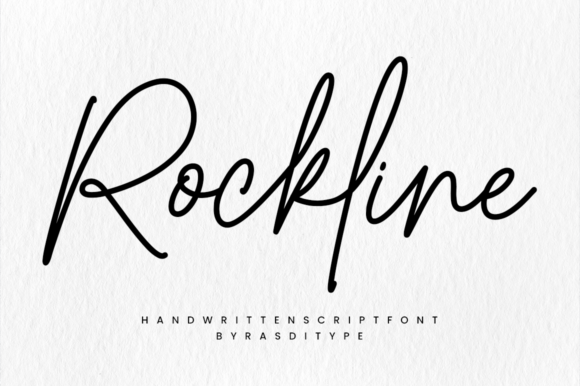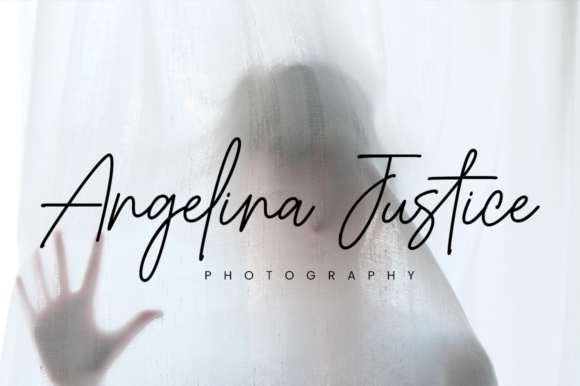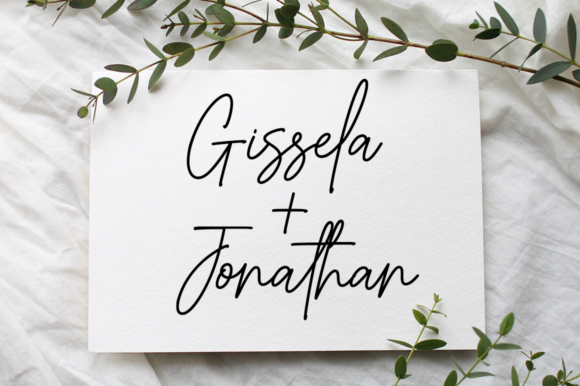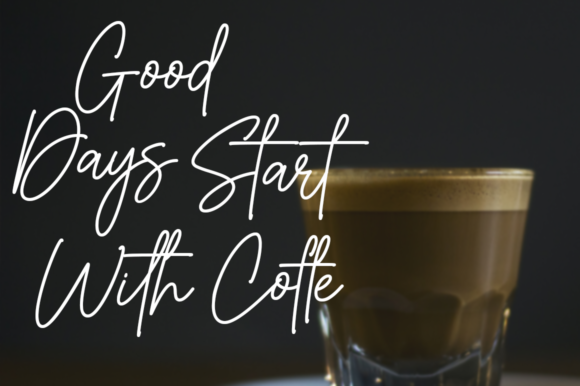
Rockline Font
About the Rockline Font
The wait is over! The incredible Rockline Font is now available for your design toolkit. Rockline is a thin lettered handwritten font, masterfully designed with a delicate touch. Use it for projects that need lovely, romantic typography! This font is PUA encoded, which means you can access all of the glyphs and swashes with ease!
Rockline’s delicate nature makes it ideal for projects requiring a touch of elegance and romance, such as wedding invitations, greeting cards, or branding for high-end beauty products. Its thin strokes, however, limit its readability in body text or UI elements. Avoid using it for large blocks of text or applications demanding high legibility.
Its inherent femininity pairs well with clean sans-serif fonts like Montserrat or Lato for a balanced contrast, or a classic serif like Garamond for a more timeless feel. For a touch of playful sophistication, consider pairing it with a script font like Allura, but use sparingly to avoid visual clutter.
Rockline projects a soft, romantic, and subtly elegant personality. It’s best suited for brands aiming for a delicate, feminine aesthetic. Overuse can lead to a lack of visual weight, so use it strategically as an accent.
Rockline Font Usage Examples
Rockline Font Example